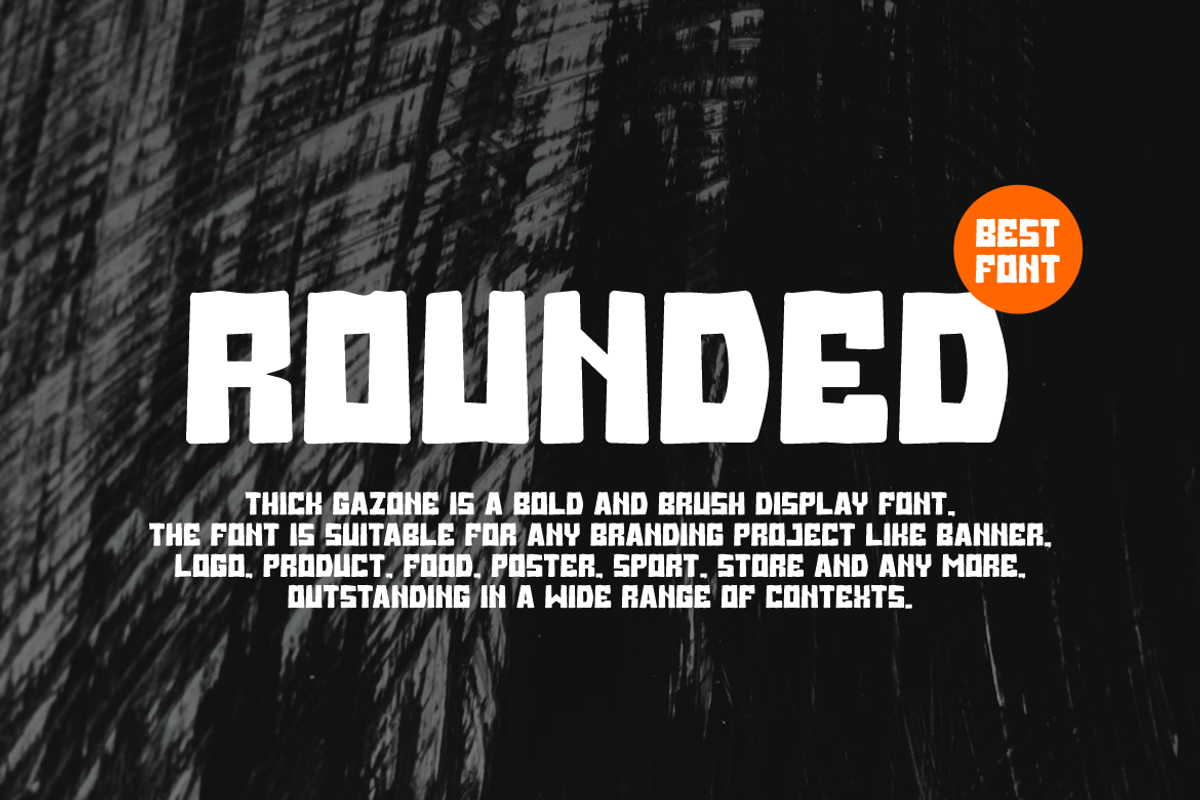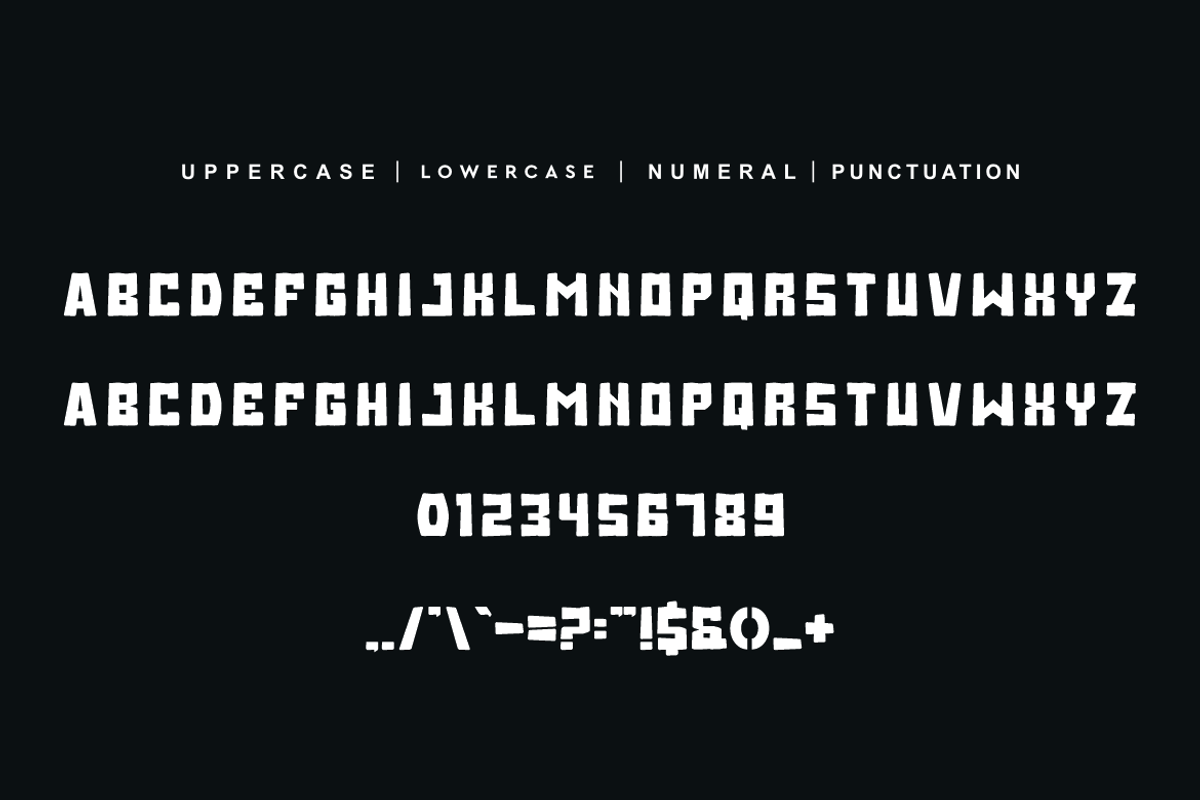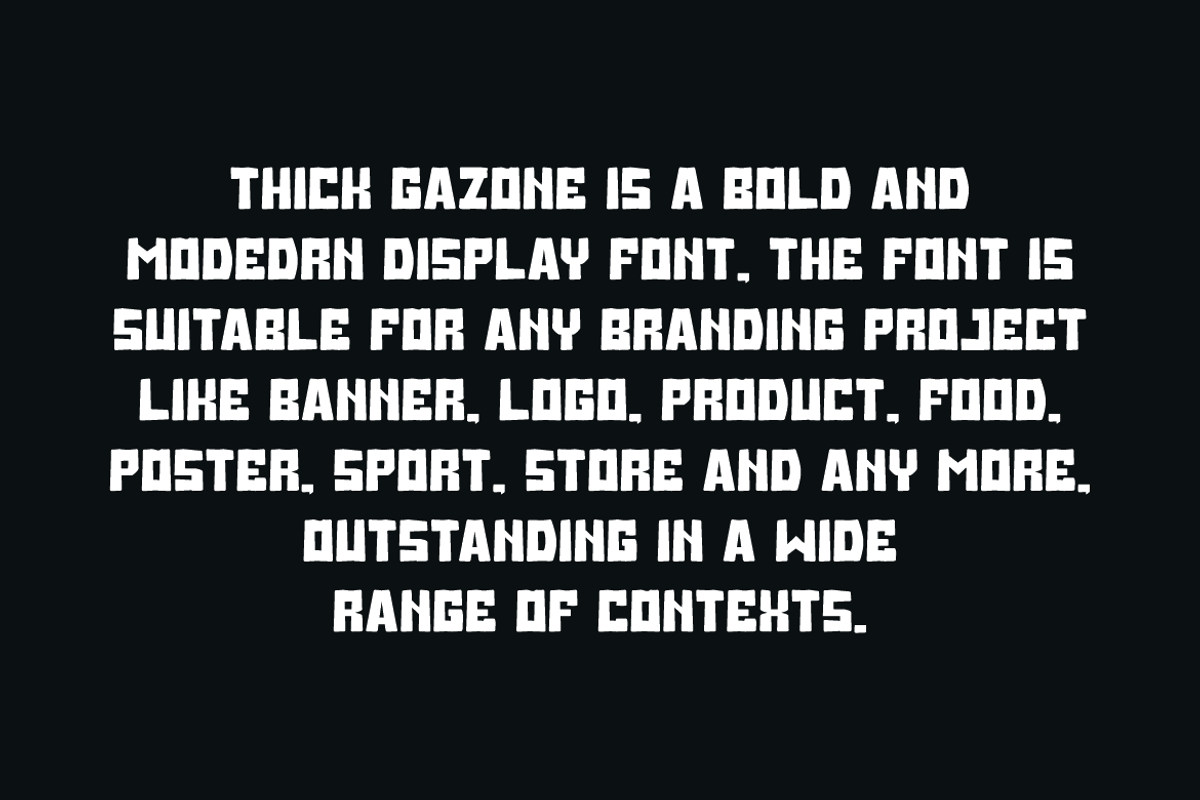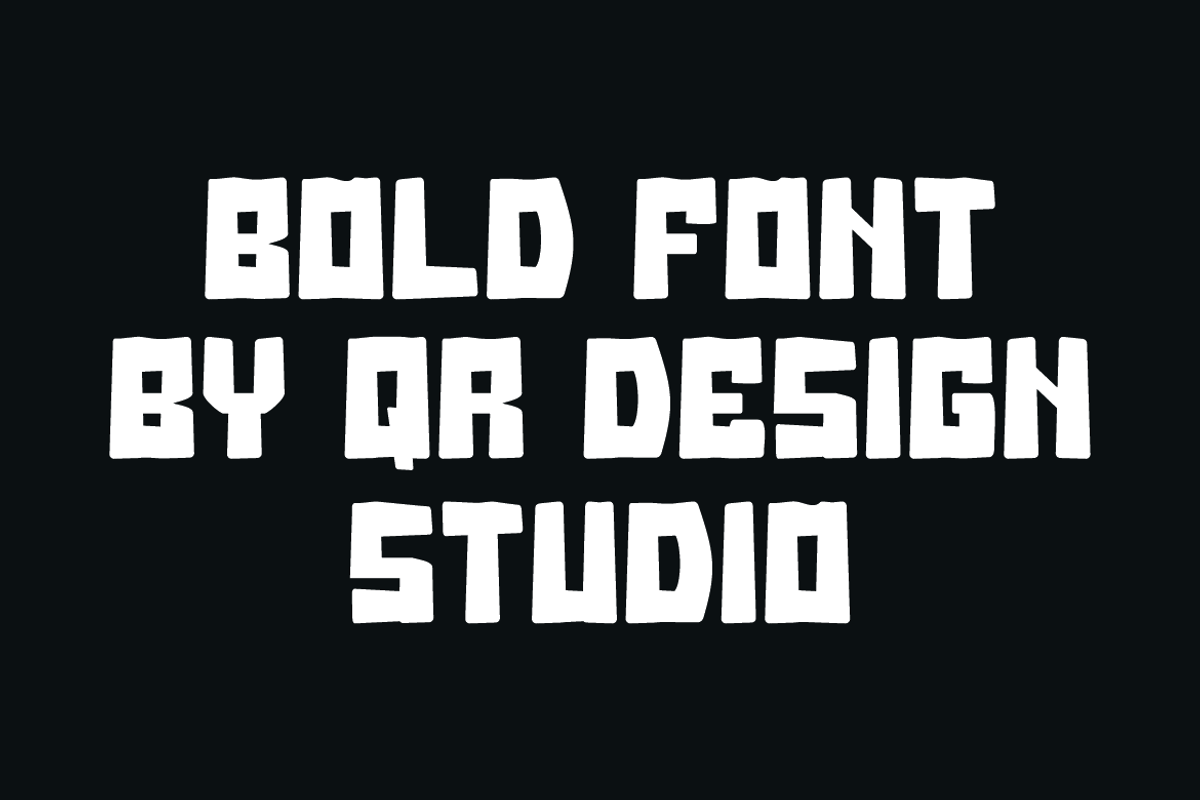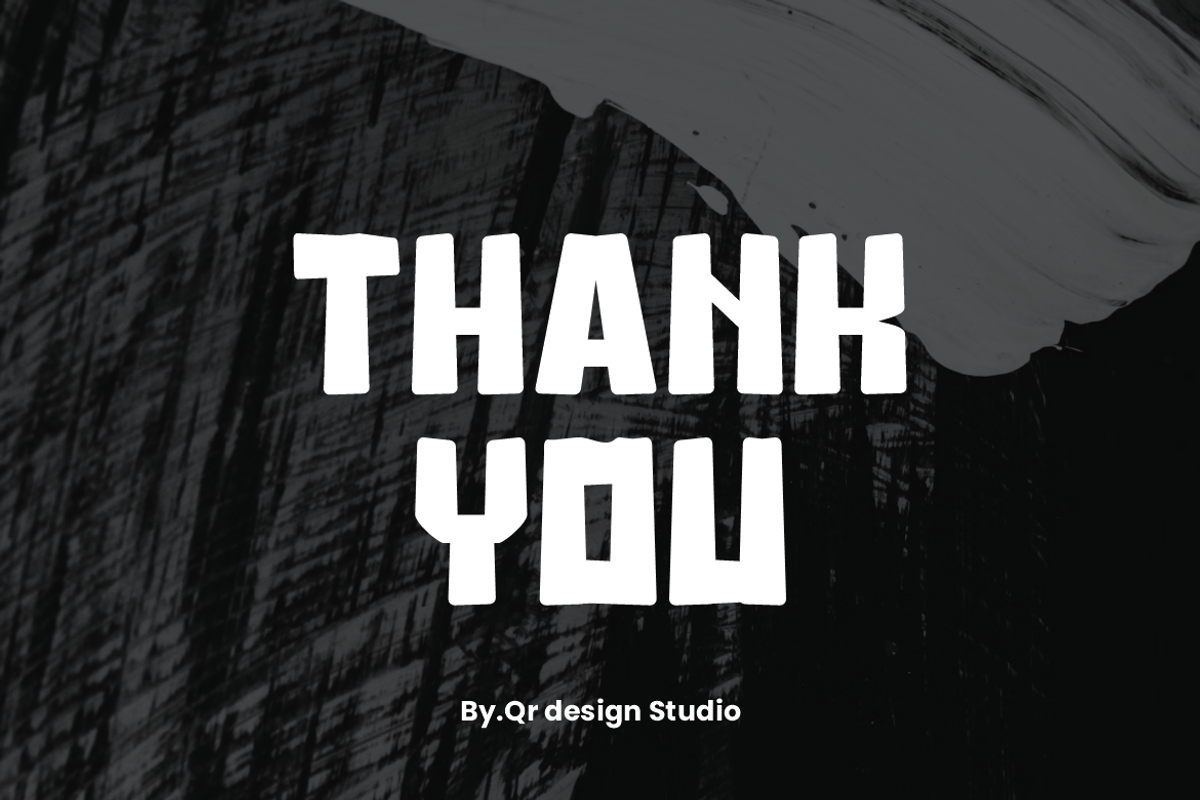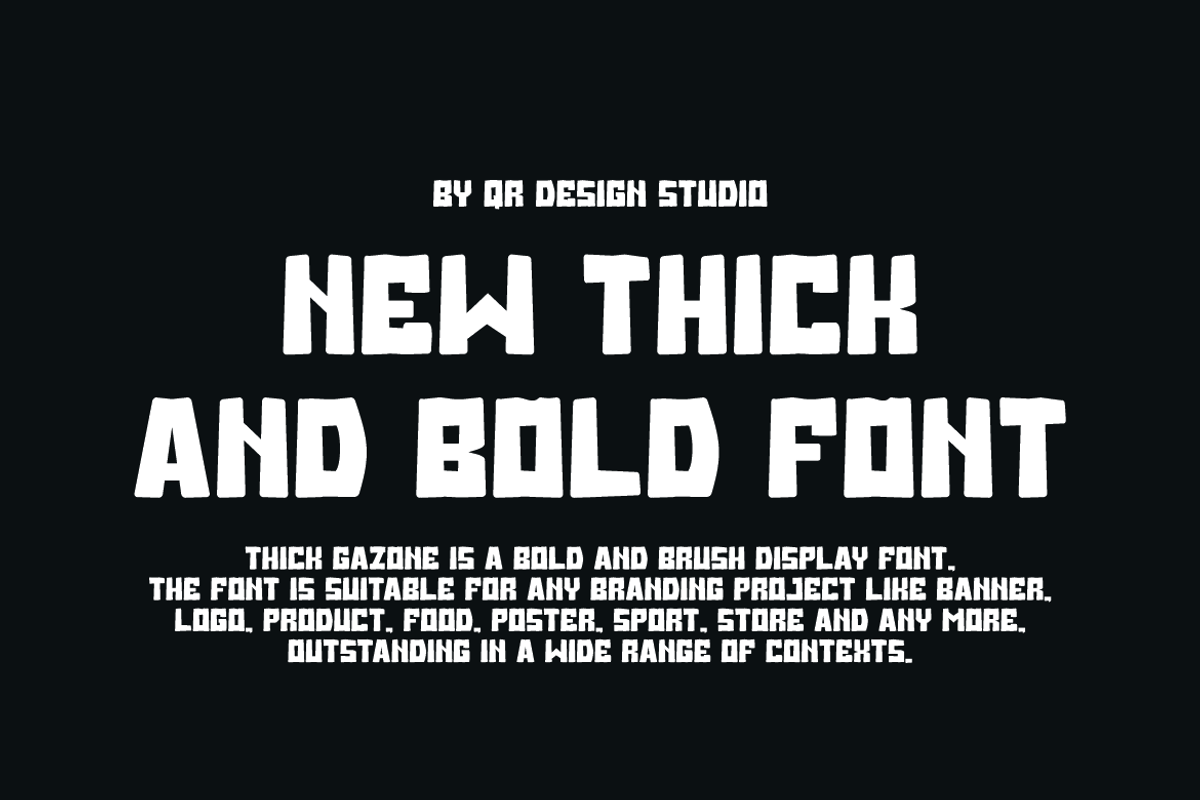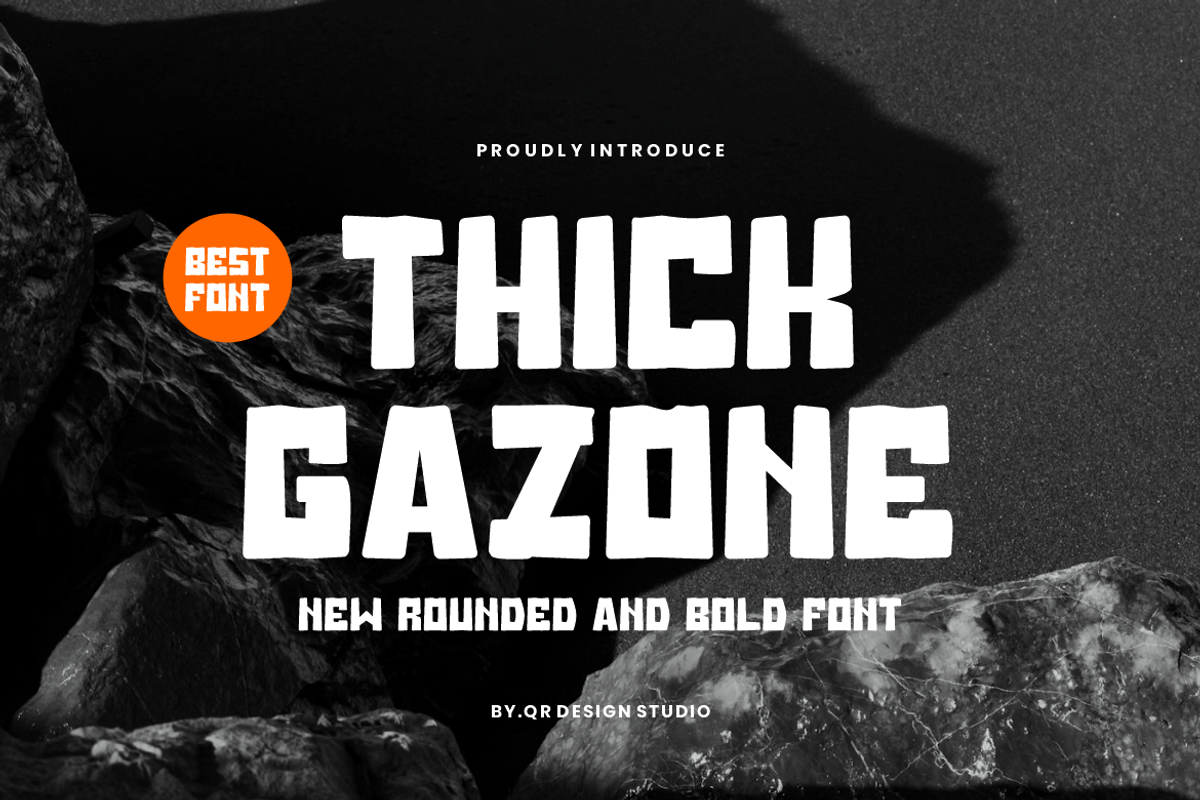
Thick Gazone - Rounded Font
Thick Gazone Font is a bold and authentic display font. The font is suitable for any branding project like poster, logo, sport, and many more. Outstanding in a wide range of contexts.